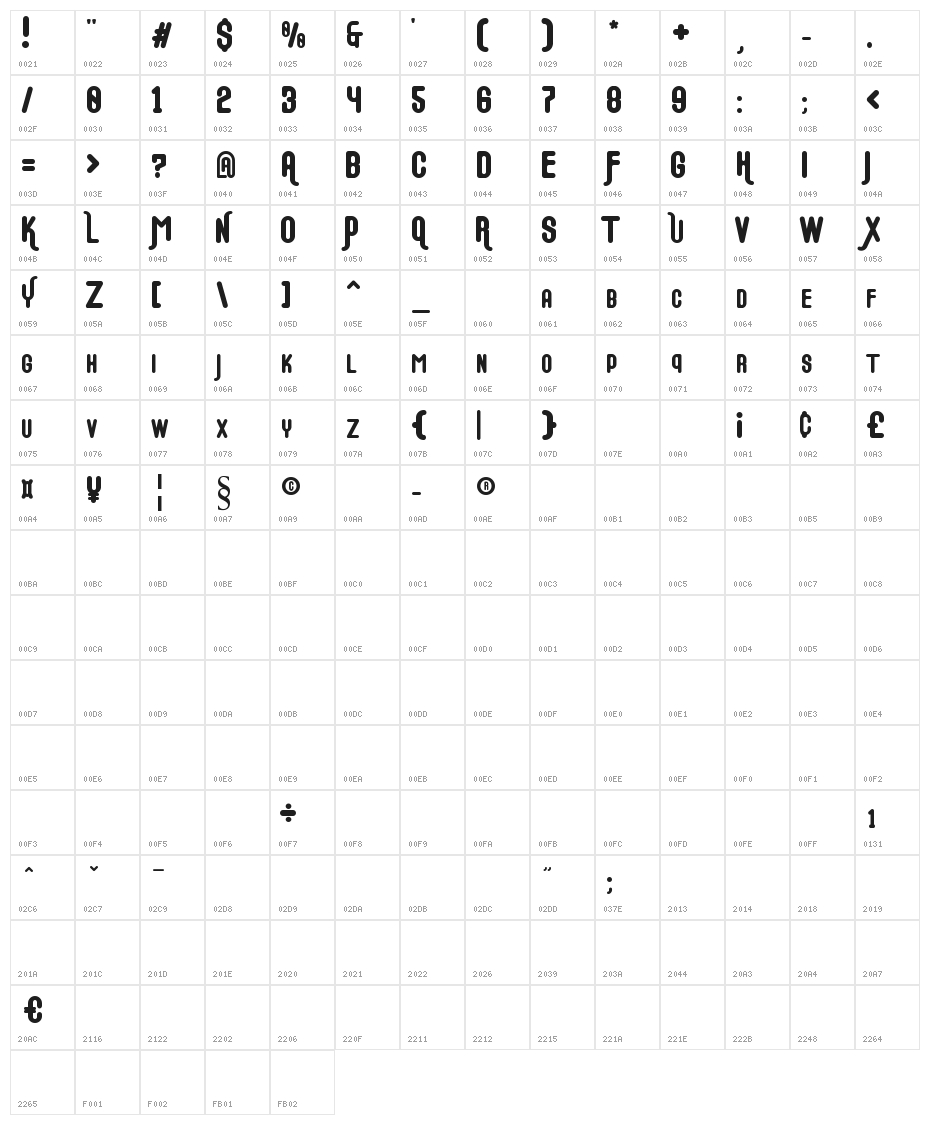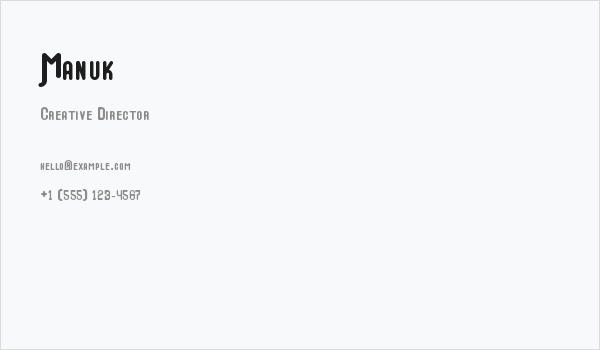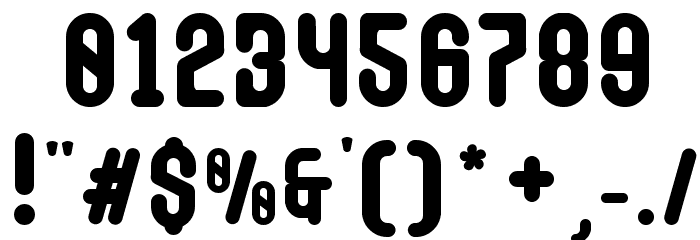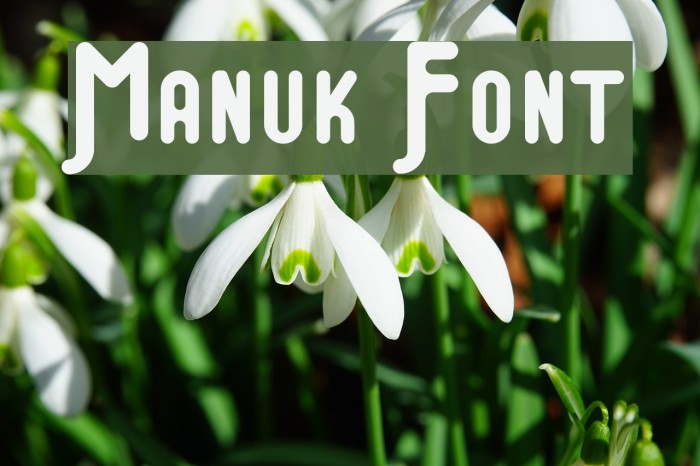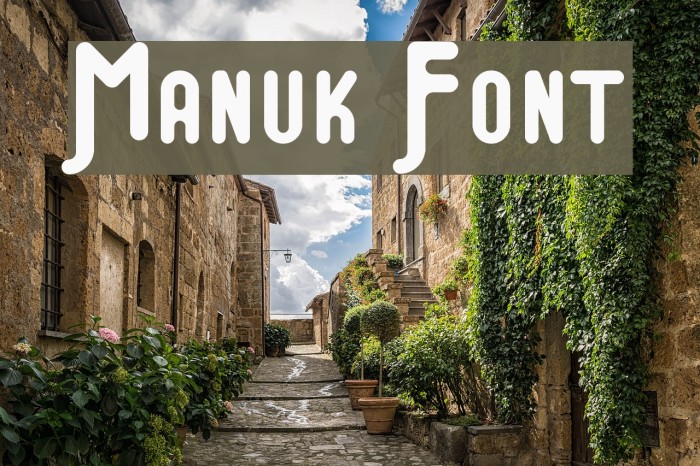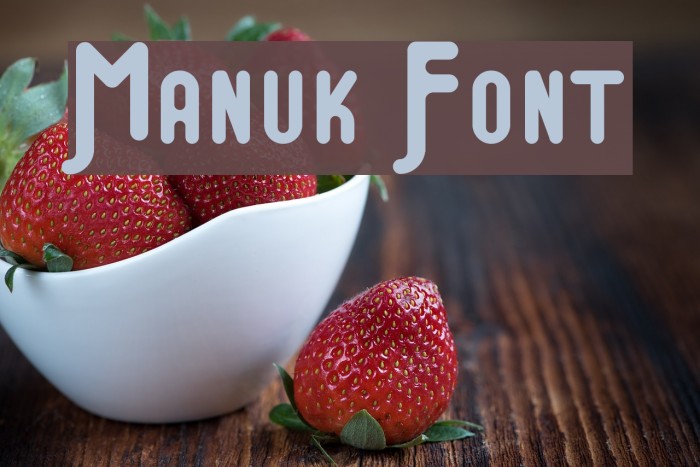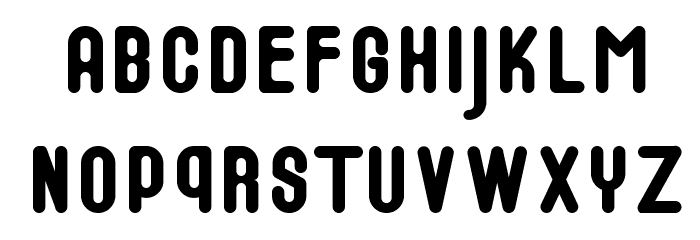
Manuk Font
Manuk Description
This font exhibits a bold and modern aesthetic with a unique, rounded style that gives it a playful yet professional look. The characters are uniformly thick, providing a strong visual impact. The uppercase and lowercase letters maintain a consistent design, with rounded edges and a slightly condensed form. The numerals and special characters follow the same stylistic approach, ensuring a cohesive appearance across all elements. This font's distinctiveness lies in its combination of boldness and rounded forms, making it suitable for a variety of creative applications.
| Proposed Projects | Ideal for branding, advertising, packaging design, and digital media projects that require a strong, modern look. |